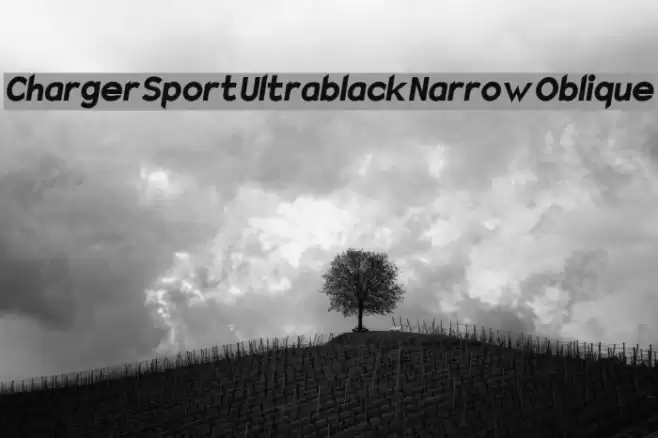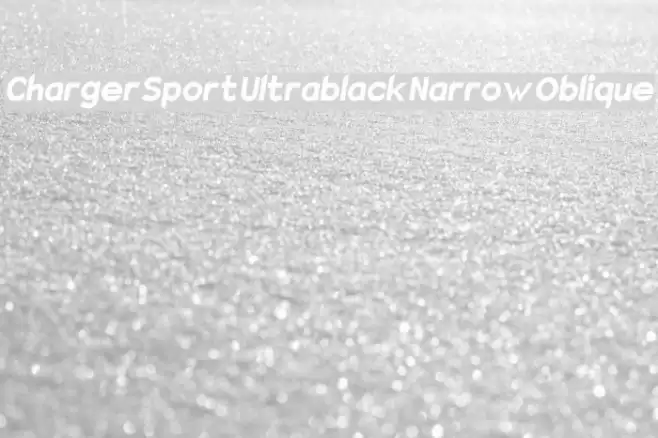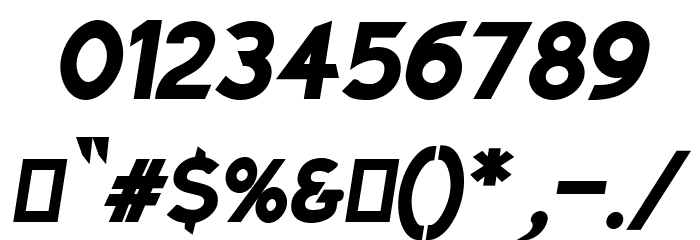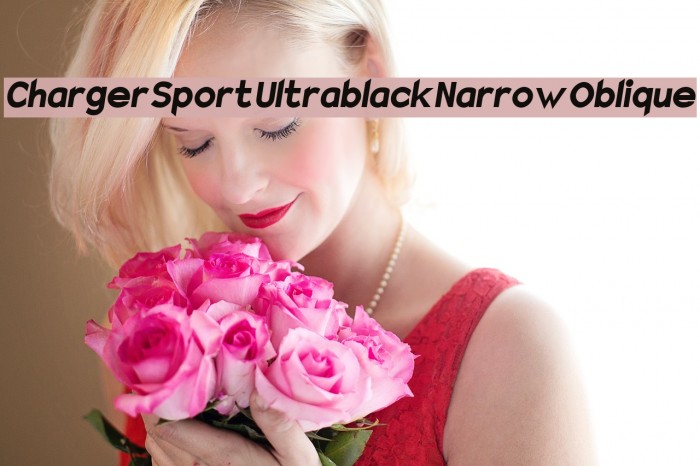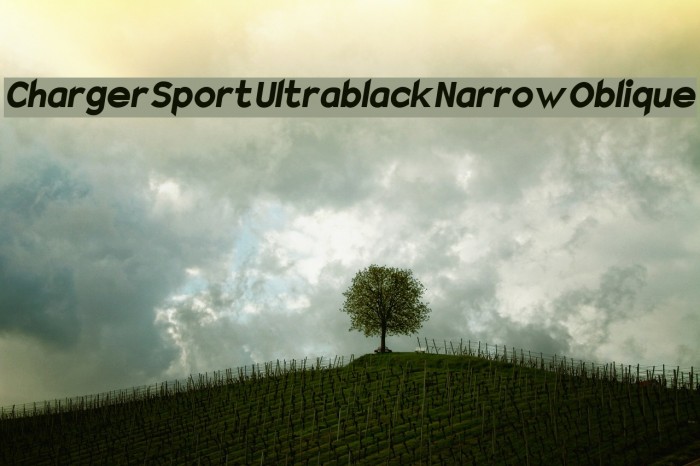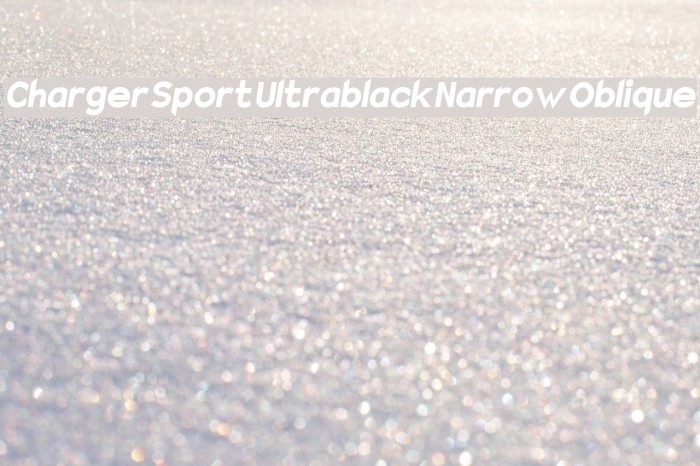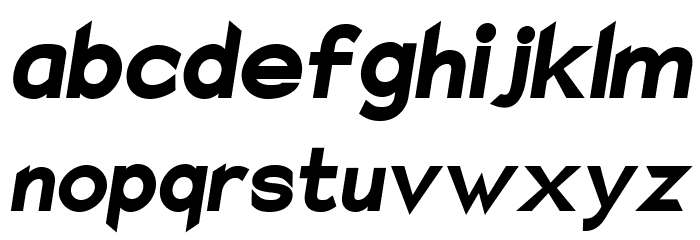
Charger Sport Ultrablack Narrow Oblique Font
Charger Sport Ultrablack Narrow Oblique Description
This font exhibits a bold and dynamic style, characterized by its ultrablack weight and narrow width. The oblique slant adds a sense of motion and energy, making it stand out in any design. The uppercase and lowercase letters maintain a consistent style, with sharp angles and clean lines that enhance readability. The numerals and special characters are designed to complement the alphabet, ensuring a cohesive look across all text elements. This font's modern and sporty appearance makes it ideal for projects that require a strong visual impact.
A bold, narrow, and oblique font with a modern, sporty style from Uncategorized fonts.
- Proposed Projects: Ideal for sports branding, dynamic posters, and modern advertising campaigns.